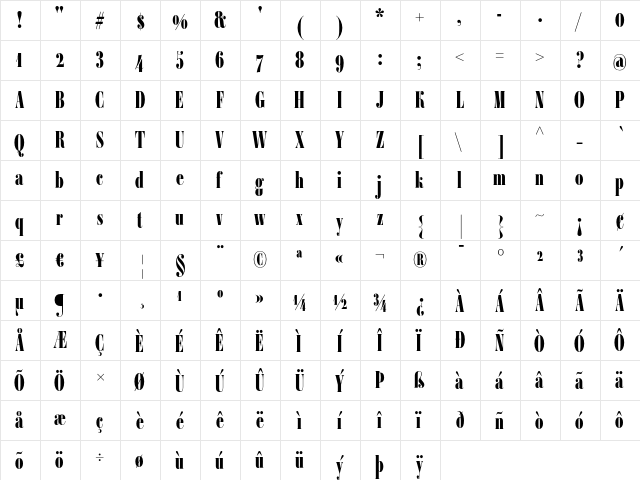
Ambroise Francois Black
Design Context for Ambroise Francois Typeface
Ambroise Francois offers clean, dependable letterforms without strong stylistic allegiance, making it a practical choice for designers who need flexibility.